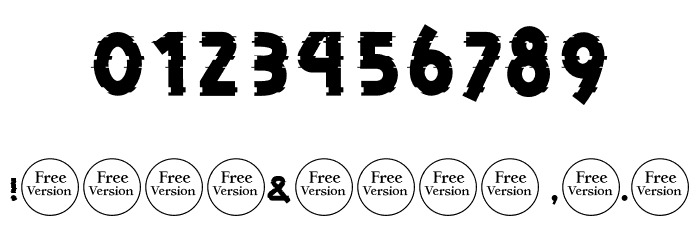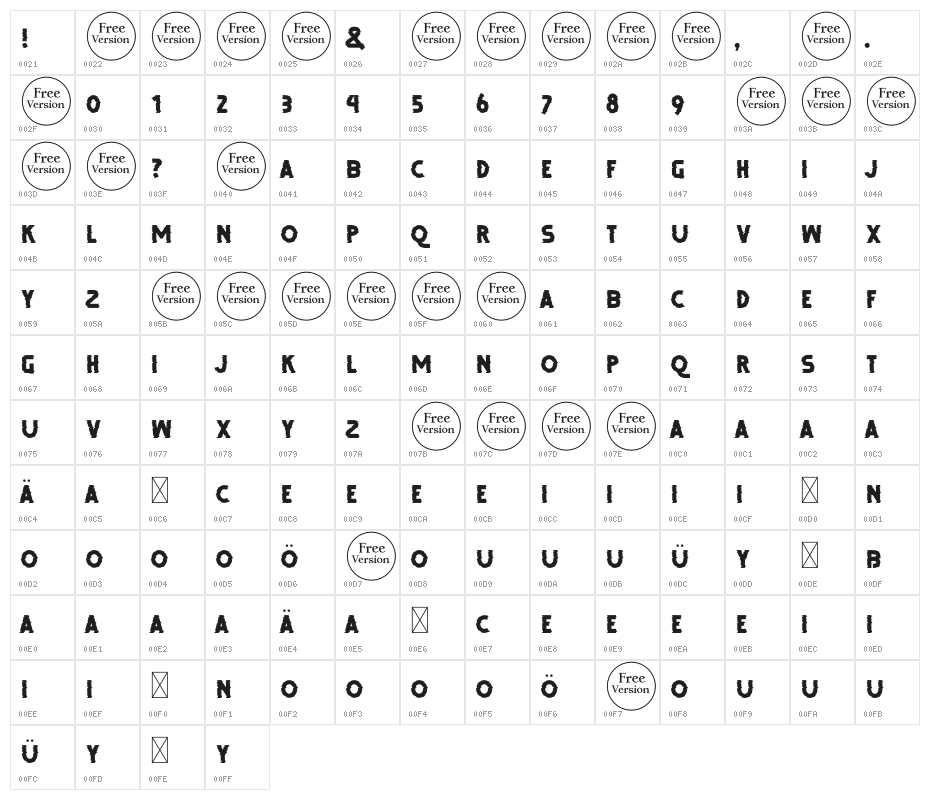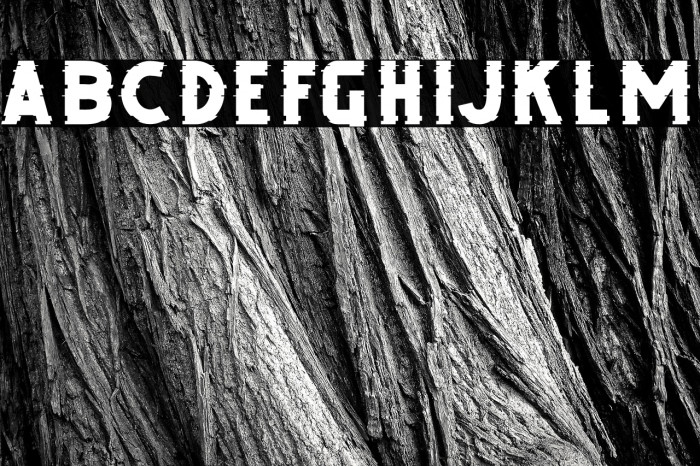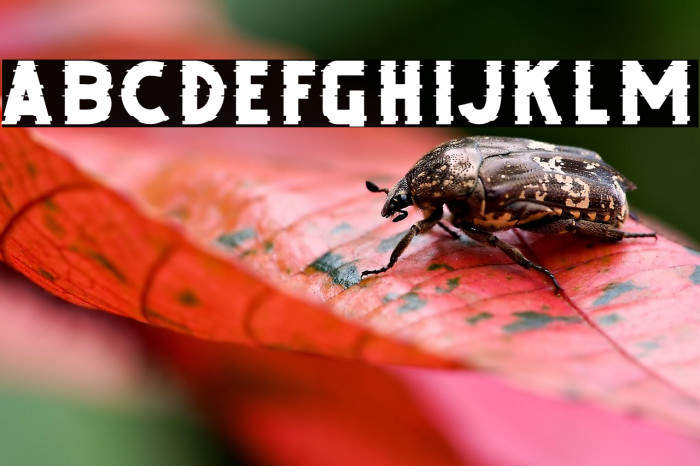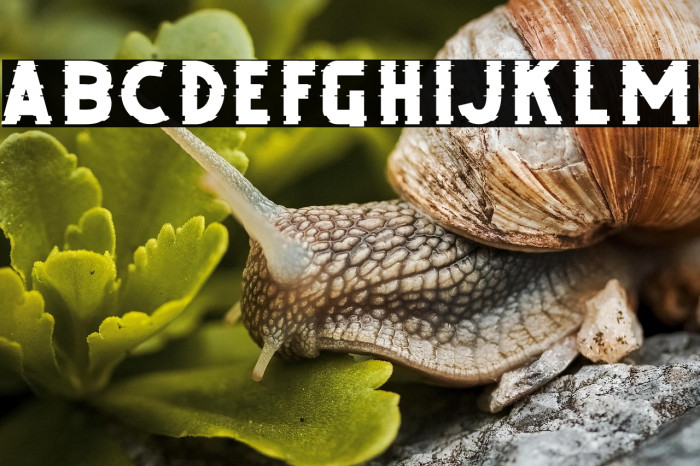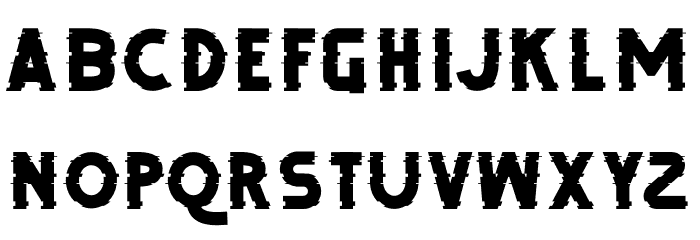
DEBUG FREE TRIAL Font
DEBUG FREE TRIAL Description
This font features a bold and rugged design with a distressed, textured appearance. The characters are uppercase and have a blocky, geometric structure, giving them a strong and impactful presence. The edges are irregular and rough, adding a sense of dynamism and energy. This style is reminiscent of vintage or industrial aesthetics, making it suitable for projects that require a bold statement. The numbers and special characters maintain the same distressed look, ensuring consistency across all elements.
Overall StyleVintage
Proposed ProjectsIdeal for posters, album covers, branding for outdoor or adventure-themed products, and any design needing a bold, vintage touch.